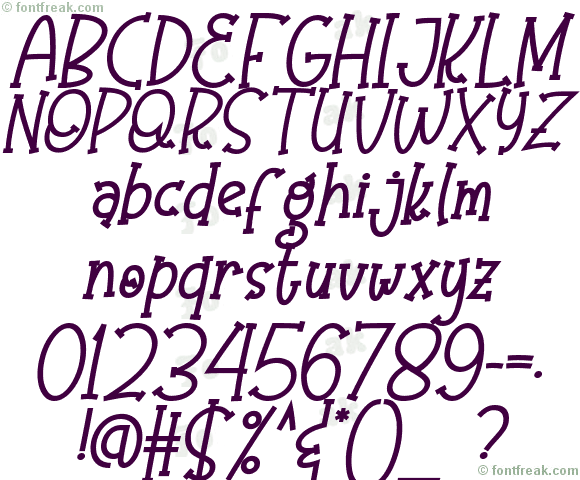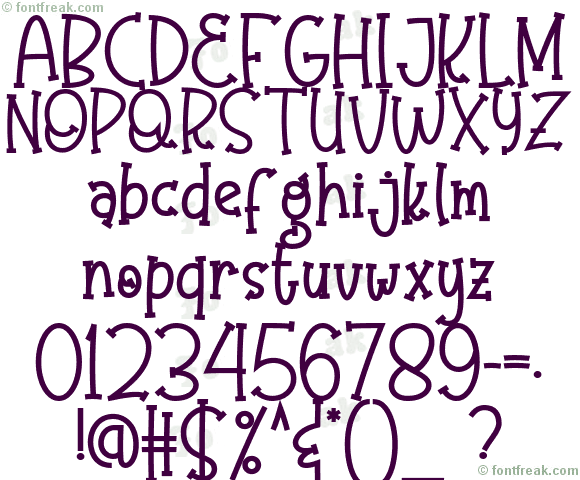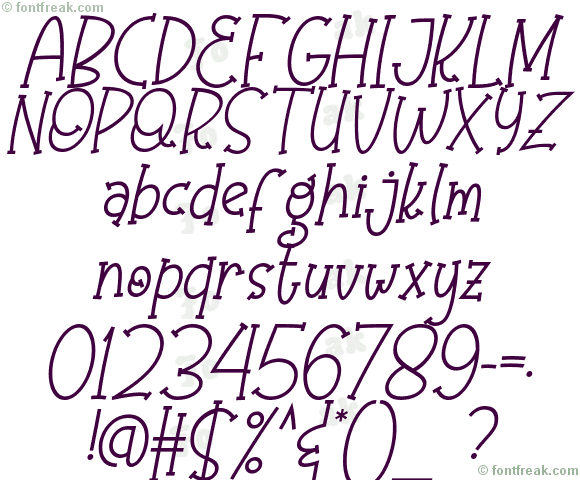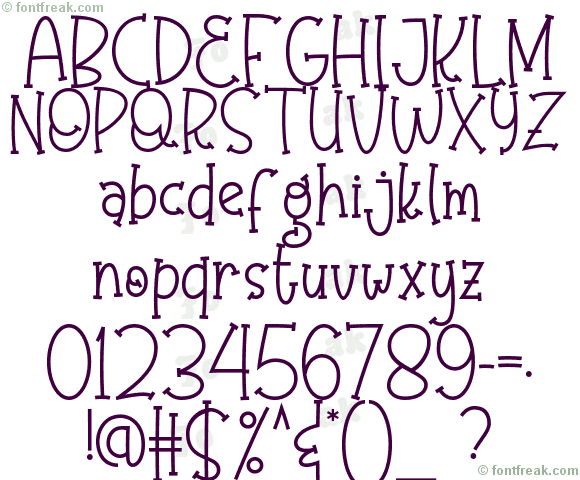
Olaugh
About Olaugh
Olaugh, designed by Situjuh Nazara, is a striking display font that effortlessly captures attention. As a decorative typeface, it features a playful and whimsical design, making it ideal for a variety of creative projects. The font showcases a unique combination of bold strokes and italic styling, giving it a dynamic presence that stands out in any application. With its moderate contrast and well-balanced spacing, Olaugh exudes a sense of charm and friendliness, making it a perfect choice for projects requiring a light-hearted touch.
The distinct characteristics of the Olaugh font make it particularly suitable for specific use cases. It shines in wedding invitations, where its cheerful style can convey a sense of joy and celebration. Additionally, it works wonderfully for movie posters, where its eye-catching design can draw viewers in. Restaurant menus can also benefit from the inviting nature of Olaugh, creating an appealing atmosphere for diners. Furthermore, the font is an excellent choice for children’s book covers, where its playful and creative flair can engage young readers.
What truly sets the Olaugh font apart is its ability to blend fun with functionality. Its distinct style not only captures attention but also communicates a sense of warmth and approachability. For anyone seeking to make a statement with their typography, the Olaugh font free download is an excellent choice that will elevate any design project.